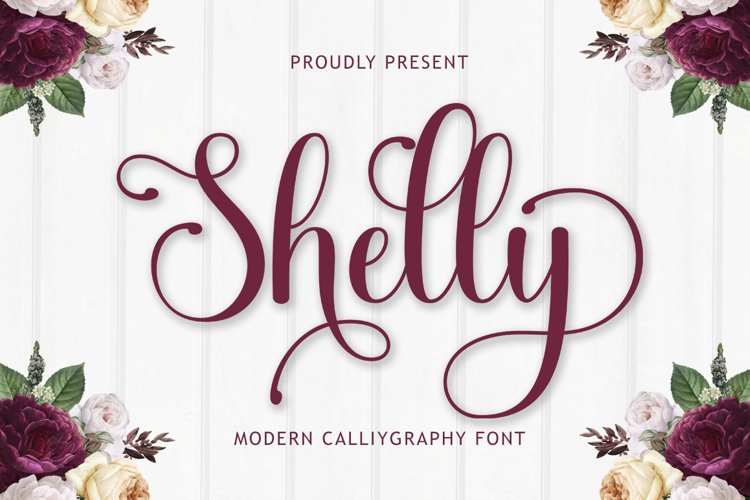
Shelly Script
Shelly Bold
Shelly Outline
Shelly Script is a modern calligraphy design, including Regular. This font is casual and pretty with swashes. Can be used for various purposes. such as logos, product packaging, wedding invitations, branding, headlines, signage, labels, signatures, book covers, posters, quotes, and many more.